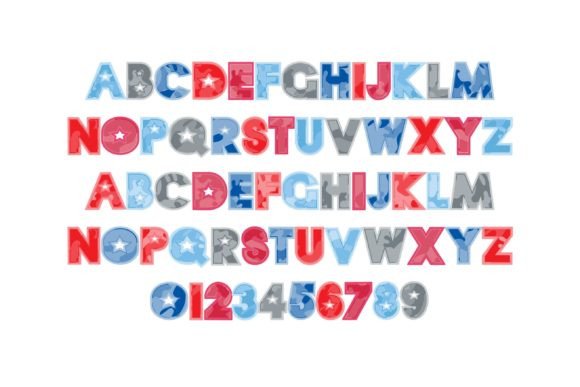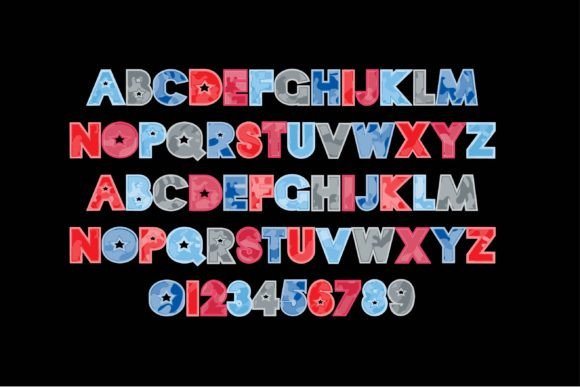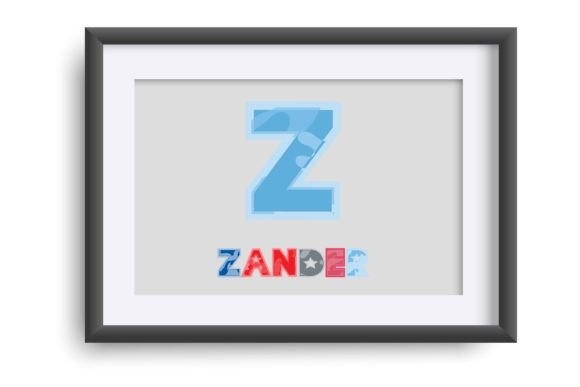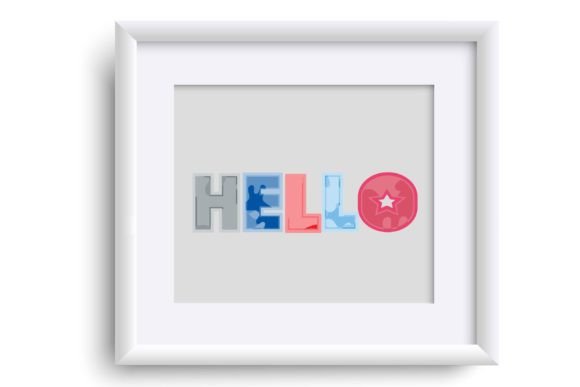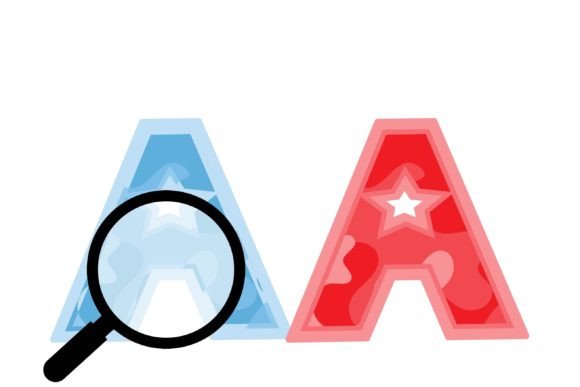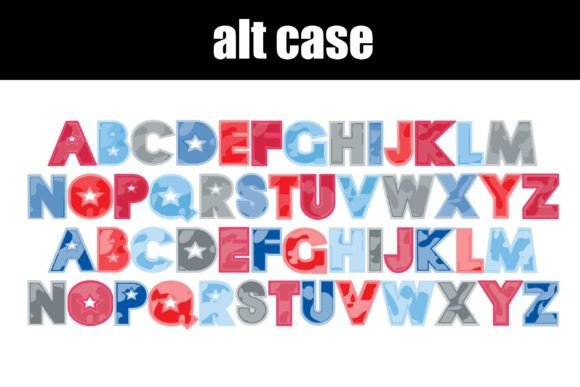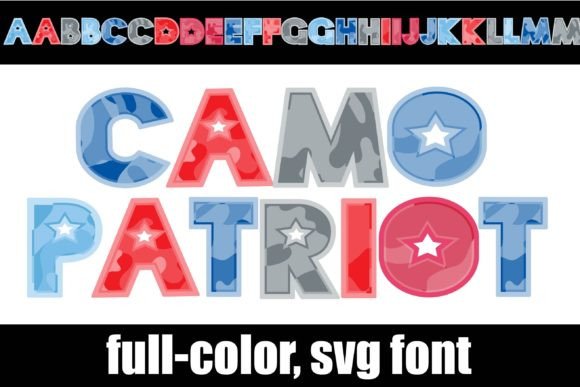
Introducing the Camo Patriot Font: A Patriotic Style Camo Print for Your Designs
Are you looking for a unique and eye-catching font to add a touch of patriotism to your designs? Look no further than the Camo Patriot Font, a full-color font featuring a patriotic style camo print. This font is perfect for titles, displays, posters, and more, and is compatible with Silhouette Studio and other popular design programs.
What Makes the Camo Patriot Font Special?
The Camo Patriot Font is a one-of-a-kind font that features a bold and colorful camo print design. The font comes with an alt case that includes additional colors, which can be accessed through your system or Silhouette’s glyph map. This means you can customize your designs to fit your specific needs and preferences.
Benefits of Using Full-Color SVG Fonts
Full-color SVG fonts like the Camo Patriot Font offer many benefits for designers and crafters. They provide a unique and eye-catching way to add color and personality to your designs. With full-color SVG fonts, you can:
- Create stunning designs that stand out from the crowd
- Add a touch of patriotism and personality to your designs
- Customize your designs with a range of colors and styles
Tips for Using the Camo Patriot Font
Here are some tips for getting the most out of the Camo Patriot Font:
- Use the font for titles and displays to add a bold and eye-catching touch to your designs
- Experiment with different colors and styles to customize your designs
- Pair the font with other patriotic-themed designs and elements to create a cohesive look
The Camo Patriot Font is a unique and exciting font that offers a range of creative possibilities for designers and crafters. With its bold and colorful camo print design, this font is perfect for adding a touch of patriotism and personality to your designs. Whether you’re creating titles, displays, posters, or more, the Camo Patriot Font is a great choice. So why wait? Download the Camo Patriot Font today and start creating stunning designs that showcase your creativity and style.